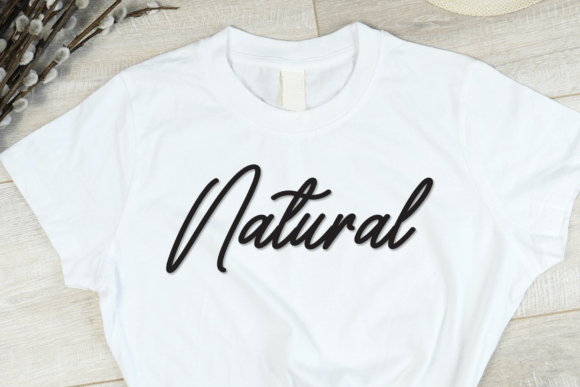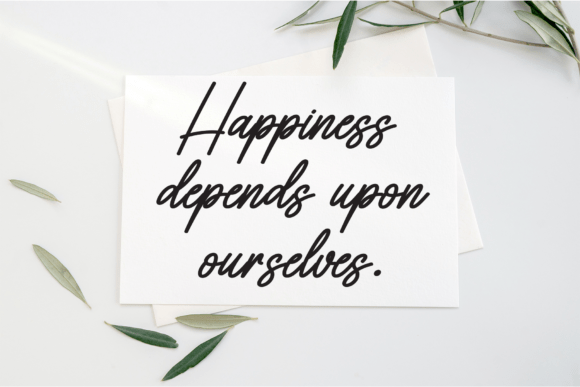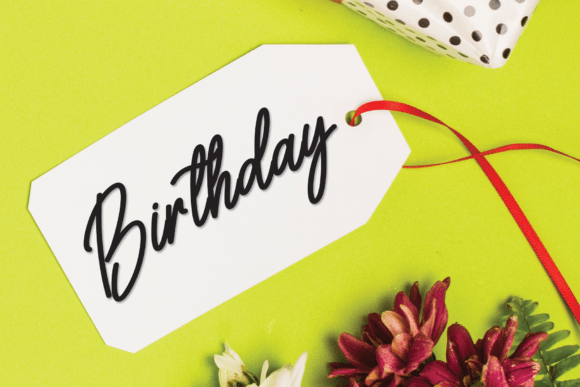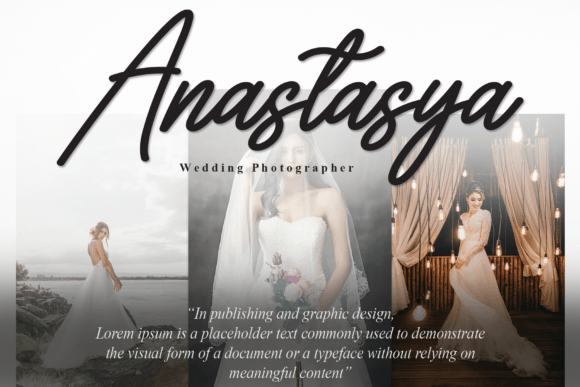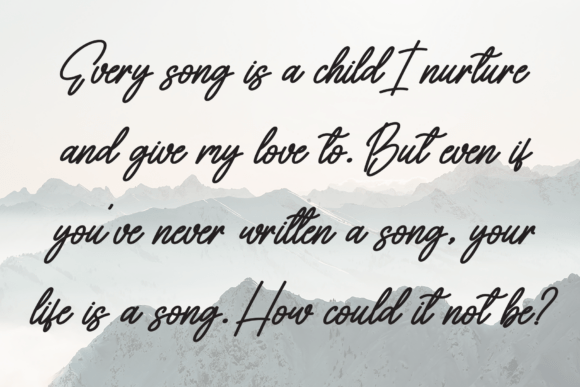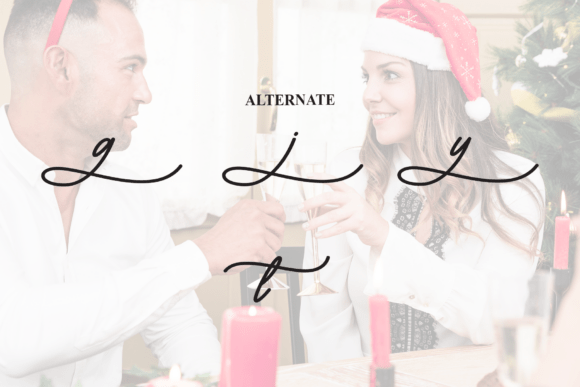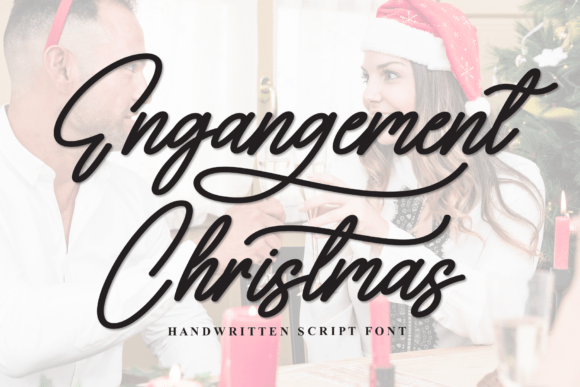
Capture the Magic of the Holiday Season with Engagement Christmas Font
The holiday season is a time for joy, love, and celebration. What better way to express these sentiments than with a beautiful and festive font that embodies the spirit of the season? Look no further than the Engagement Christmas font, a joyful and fluid handwritten script that is sure to make your holiday proposals, announcements, and designs shine.
The Characteristics of Engagement Christmas Font
The Engagement Christmas typeface is characterized by its generous loops and expressive flourishes, making it an ideal choice for life’s big “announcement” moments. This font is designed to evoke the feeling of a festive holiday celebration, with a bold but gracious weight that ensures your titles are the star of the show, even against busy holiday backgrounds.
Perfect for Holiday Engagements and Celebrations
Whether you are sharing news of a holiday engagement or designing a festive brand campaign, the Engagement Christmas font provides a sense of celebration and movement that is impossible to ignore. This font is perfect for creating custom “Save the Date” cards, festive party invitations, or holiday-themed product labels that need a touch of energetic charm.
A “Hero” Script for Your Holiday Designs
The Engagement Christmas font is a “hero” script that pairs beautifully with seasonal photography and cozy textures. Its bold and expressive design makes it perfect for headlines and titles, while its gracious and fluid nature ensures that it flows beautifully with surrounding text.
The Human Touch of Engagement Christmas Font
One of the standout features of the Engagement Christmas font is its “human touch”. This font is designed to feel warm and personal, making it perfect for heartfelt messages and holiday greetings. Whether you are a designer, crafter, or DIY enthusiast, the Engagement Christmas font is sure to bring a touch of personality and charm to your holiday designs.
Why Choose Engagement Christmas Font?
So why choose the Engagement Christmas font for your holiday designs? Here are just a few reasons:
- Festive and Fun: The Engagement Christmas font is designed to capture the spirit of the holiday season, with a festive and fun design that is sure to put a smile on your face.
- Bold and Expressive: This font is designed to make a statement, with bold and expressive letterforms that are sure to grab attention.
- Pairs Well with Seasonal Photography: The Engagement Christmas font pairs beautifully with seasonal photography and cozy textures, making it perfect for holiday designs.
- Perfect for Heartfelt Messages: The human touch of the Engagement Christmas font makes it perfect for heartfelt messages and holiday greetings.
How to Use Engagement Christmas Font
The Engagement Christmas font is a versatile design that can be used in a variety of ways. Here are just a few ideas:
- Custom “Save the Date” Cards: Use the Engagement Christmas font to create custom “Save the Date” cards for holiday engagements and celebrations.
- Festive Party Invitations: Create festive party invitations with the Engagement Christmas font, complete with bold and expressive letterforms.
- Holiday-Themed Product Labels: Add a touch of energetic charm to your holiday-themed product labels with the Engagement Christmas font.
- Social Media Graphics: Use the Engagement Christmas font to create social media graphics that capture the spirit of the holiday season.
The Engagement Christmas font is a beautiful and festive design that is sure to capture the magic of the holiday season. With its bold and expressive letterforms, generous loops and flourishes, and human touch, this font is perfect for holiday proposals, announcements, and designs. Whether you are a designer, crafter, or DIY enthusiast, the Engagement Christmas font is sure to bring a touch of personality and charm to your holiday designs.